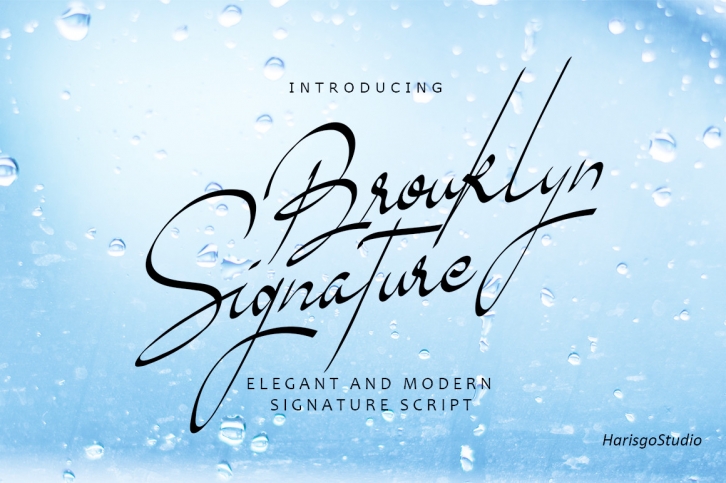
Brouklyn Signature is a thin lettered and delicate styled script font. You can use it for various projects, such as blog posts, logos, branding, ads, invitations, greeting cards, planners, photo albums, decorations, and much more.